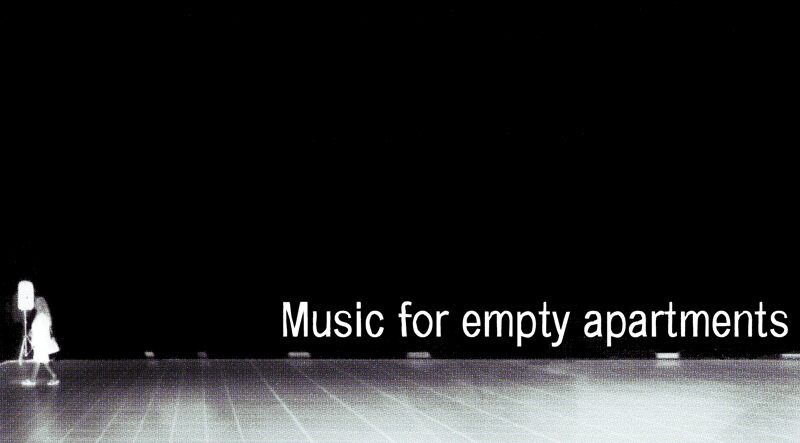
Music for empty apartments
Music for Empty Apartments by junkohanhero is a distinctive display font that evokes a sense of melancholy and introspection. With its varied stroke weights and angular forms, the typeface conveys a moody, avant-garde aesthetic. The uneven letter spacing and asymmetric design lend a raw, imperfect quality that feels both intentional and emotive. This font excels in editorial layouts, album covers, and other artistic projects where a visually striking yet thoughtful typographic treatment is desired.
Its versatility extends to book titles, posters, and branding applications that seek to capture a pensive, atmospheric mood.